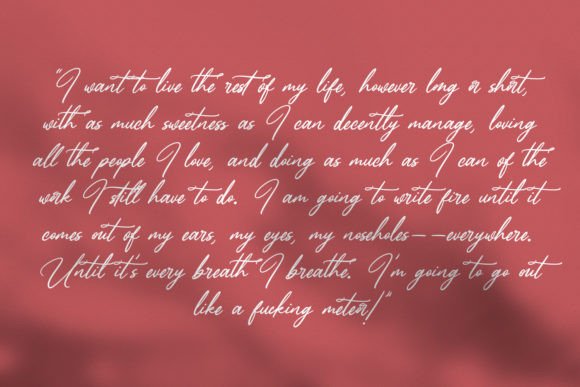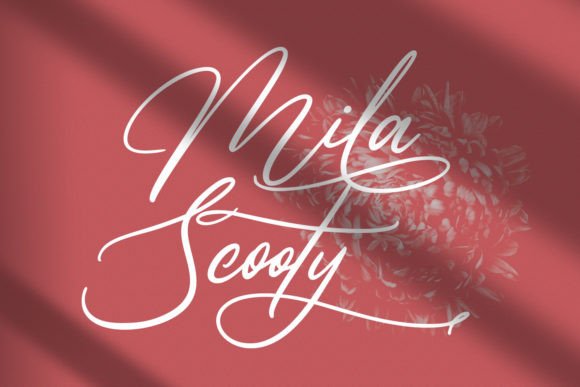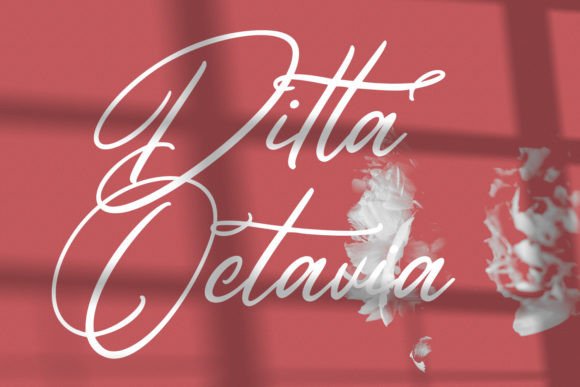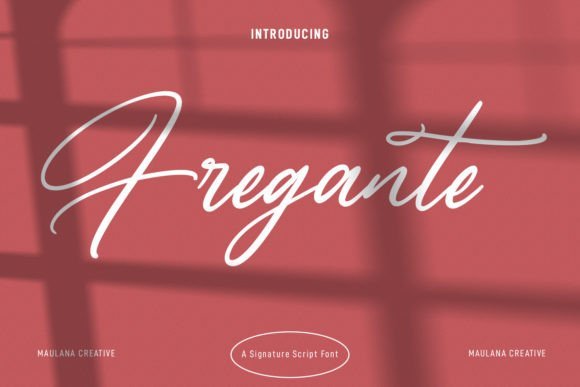
Introduction to Fregante Font
Fregante is an expressive signature script font.
Contemporary and fresh, it is perfect for any design you wish to create Add it to your creative projects and make them outstanding.
Why Choose Fregante Font?
Fregante Font offers exceptional quality and versatility, making it a valuable addition to your design toolkit. Whether you’re creating for personal projects or commercial use, Fregante Font delivers professional results.